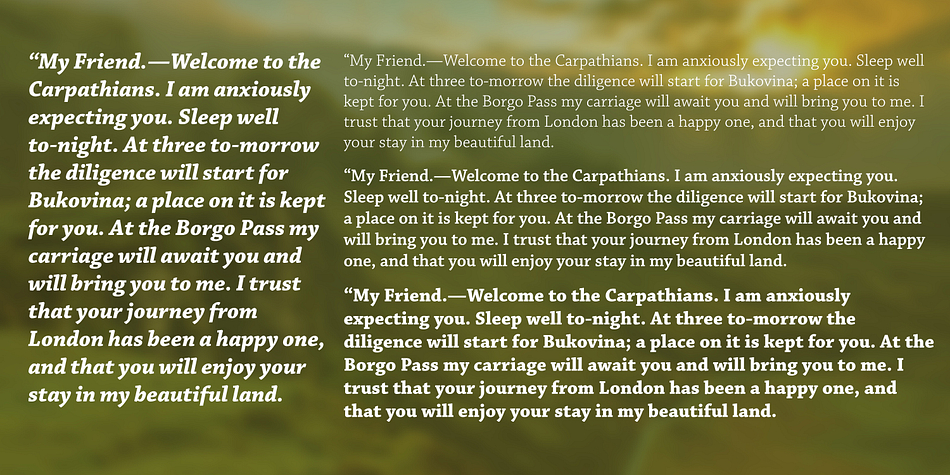
Chaparral® Pro is a slab serif font family. This typeface has thirty-two styles and was published by Adobe.
Created by Adobe type designer Carol Twombly, Chaparral combines the legibility of slab serif designs popularized in the 19th century with the grace of 16th-century roman book lettering. The result is a versatile, hybrid slab-serif design, a unique addition to the Adobe Originals family of typefaces. Unlike “geometric” slab serif designs, Chaparral has varying letter proportions that give it an accessible and friendly appearance in all weights from light to bold. Like the drought-resistant brush that blooms on the arid coastal range near Twombly’s California home, Chaparral’s highly functional design is surprisingly beautiful.